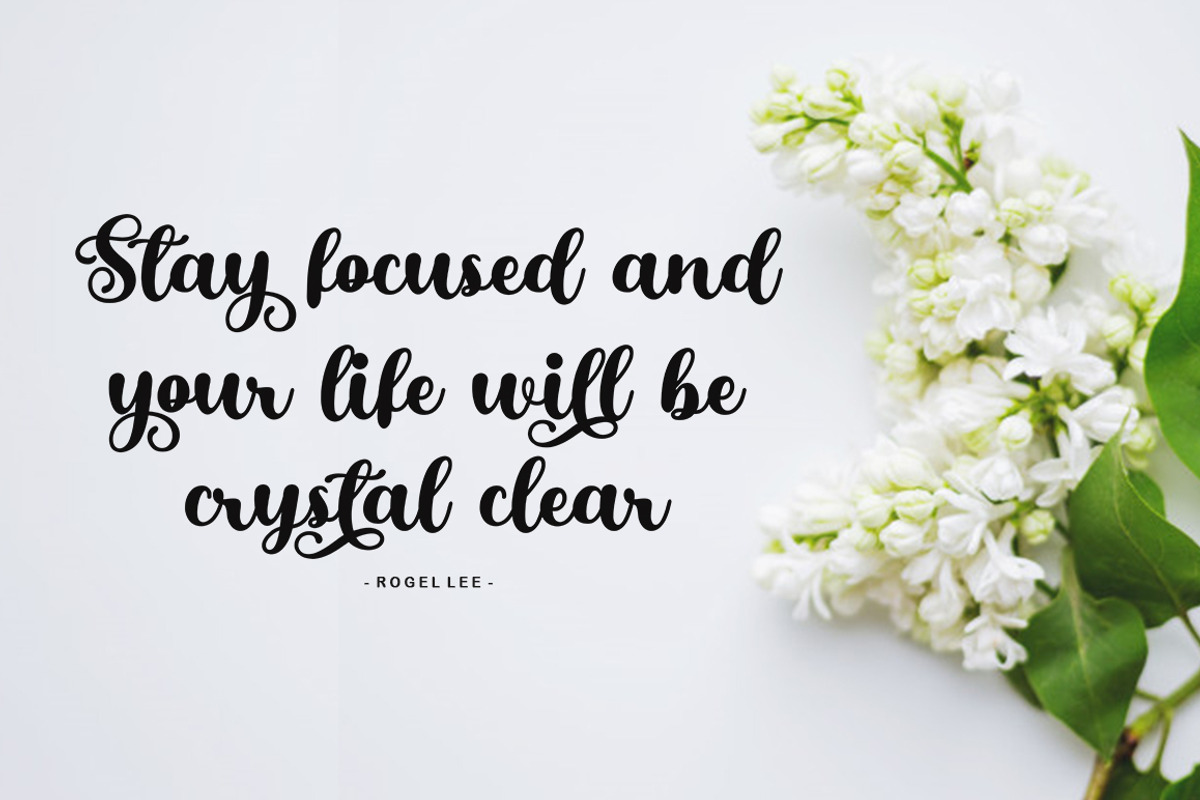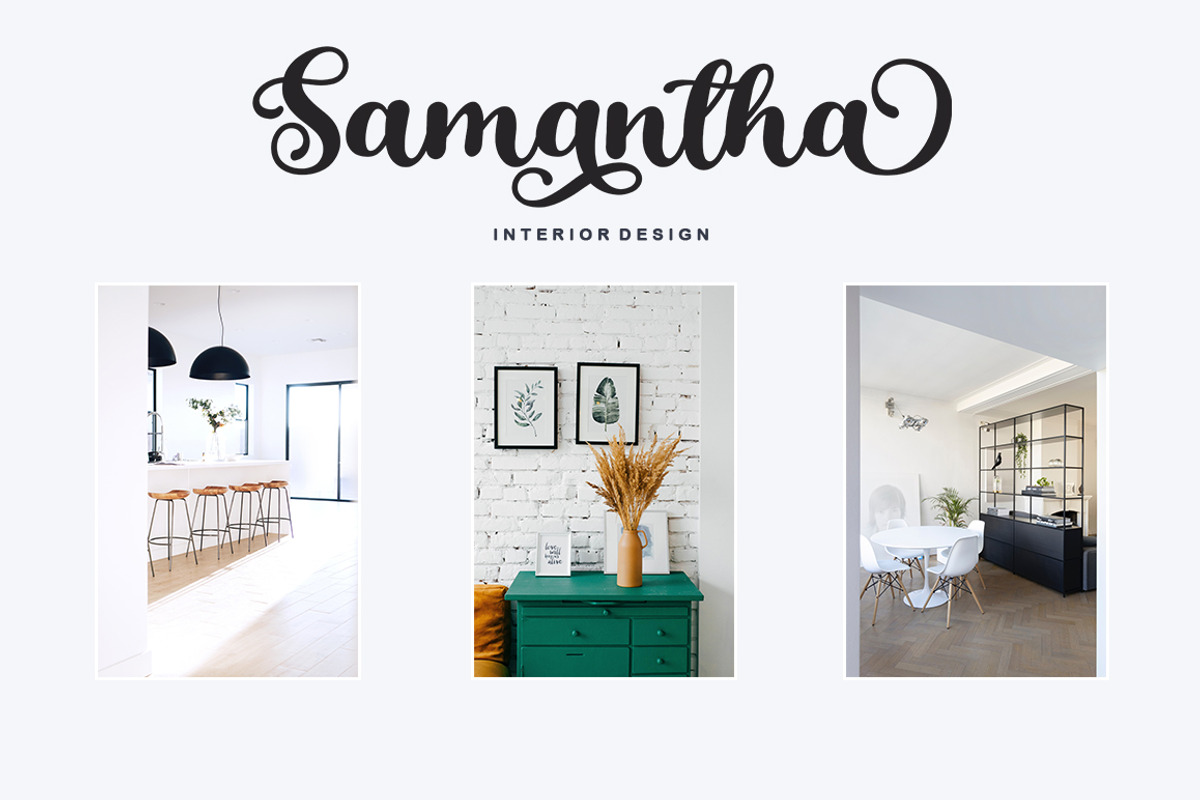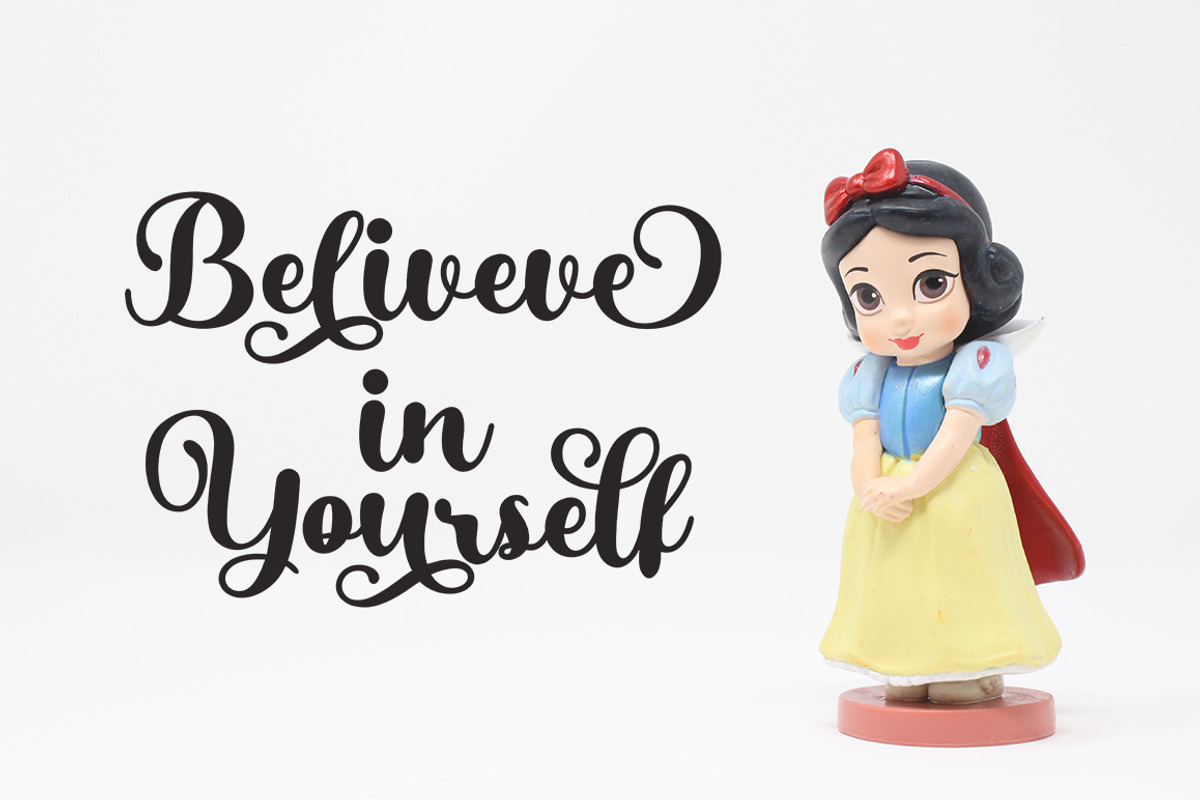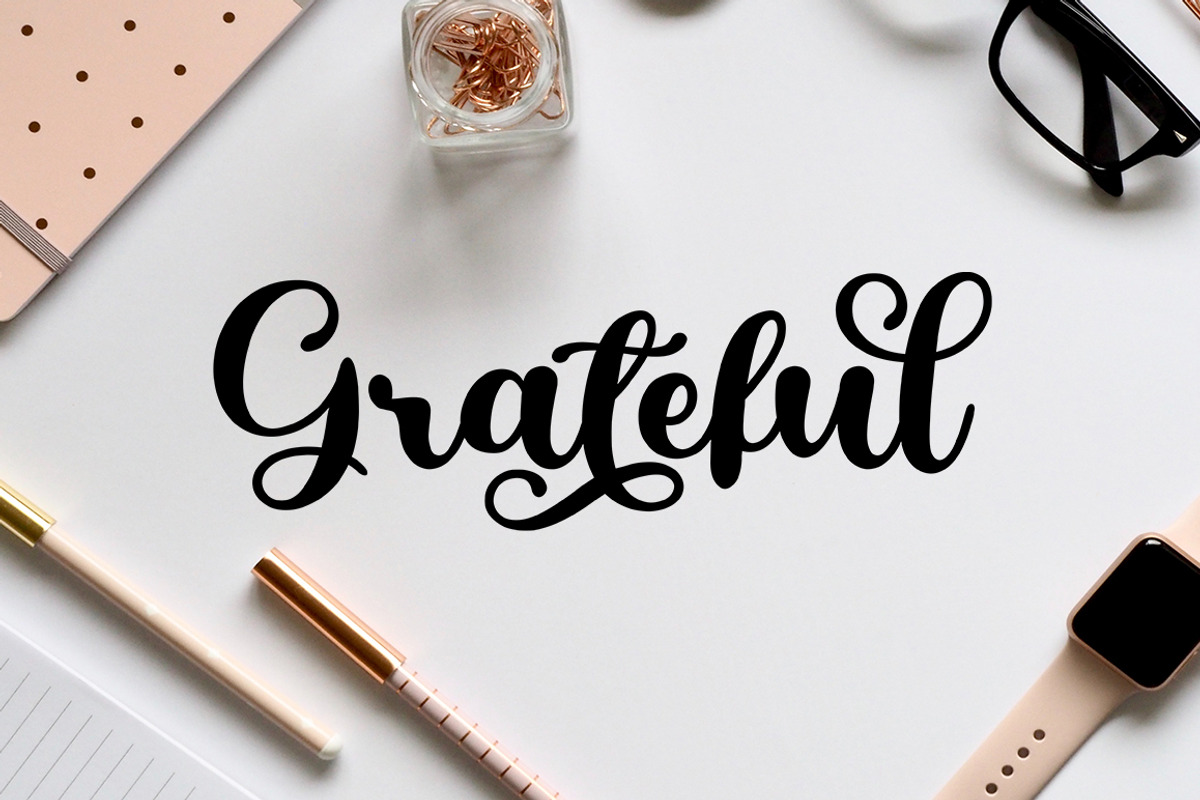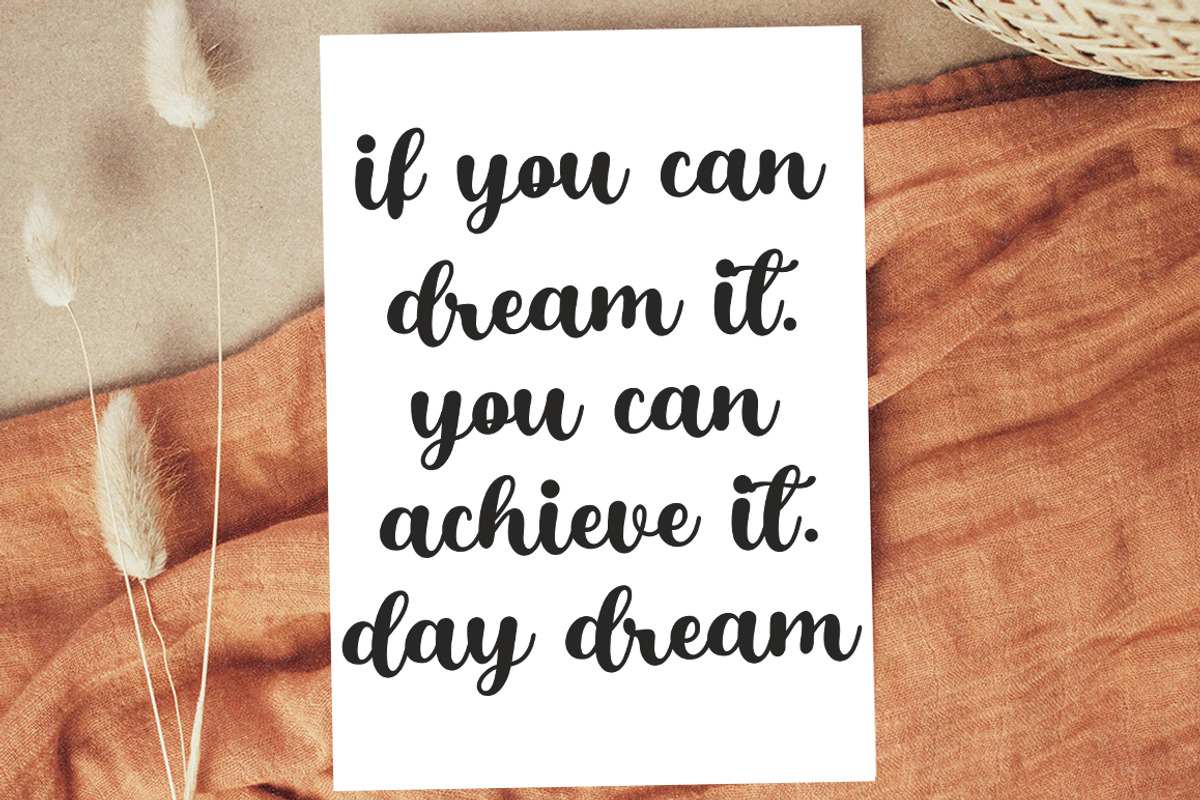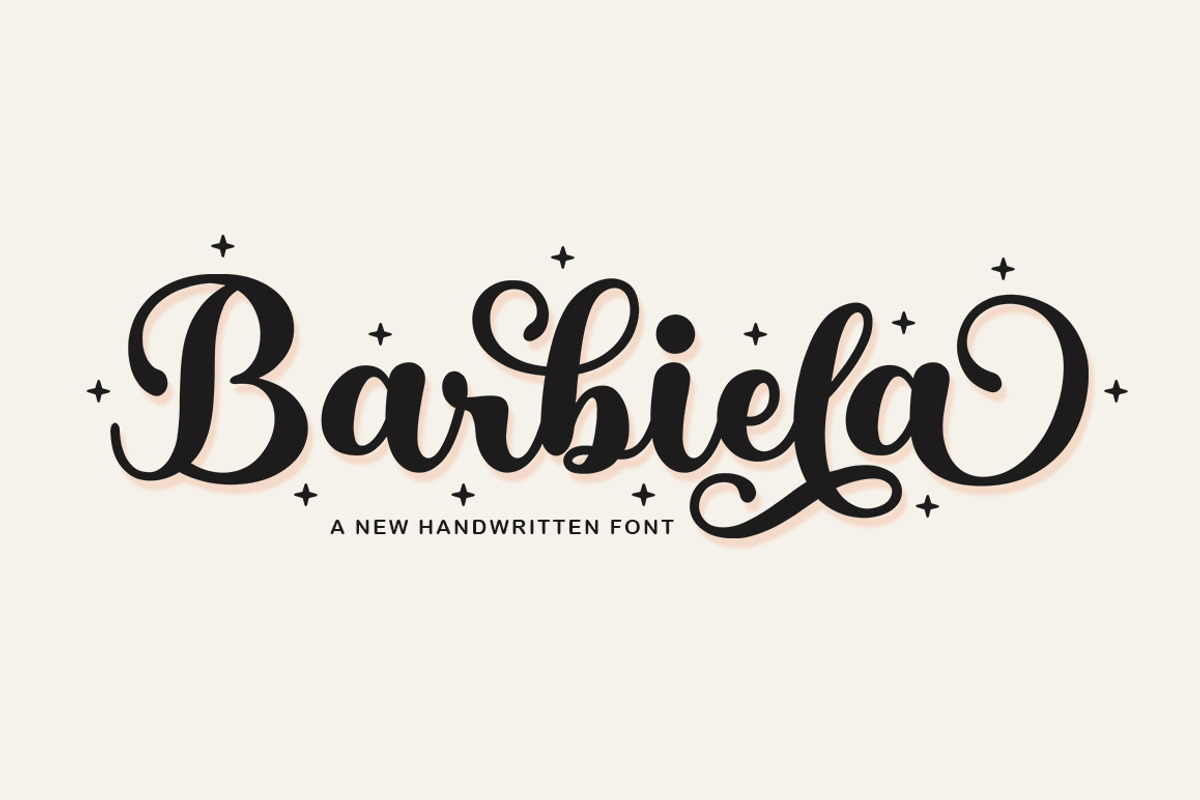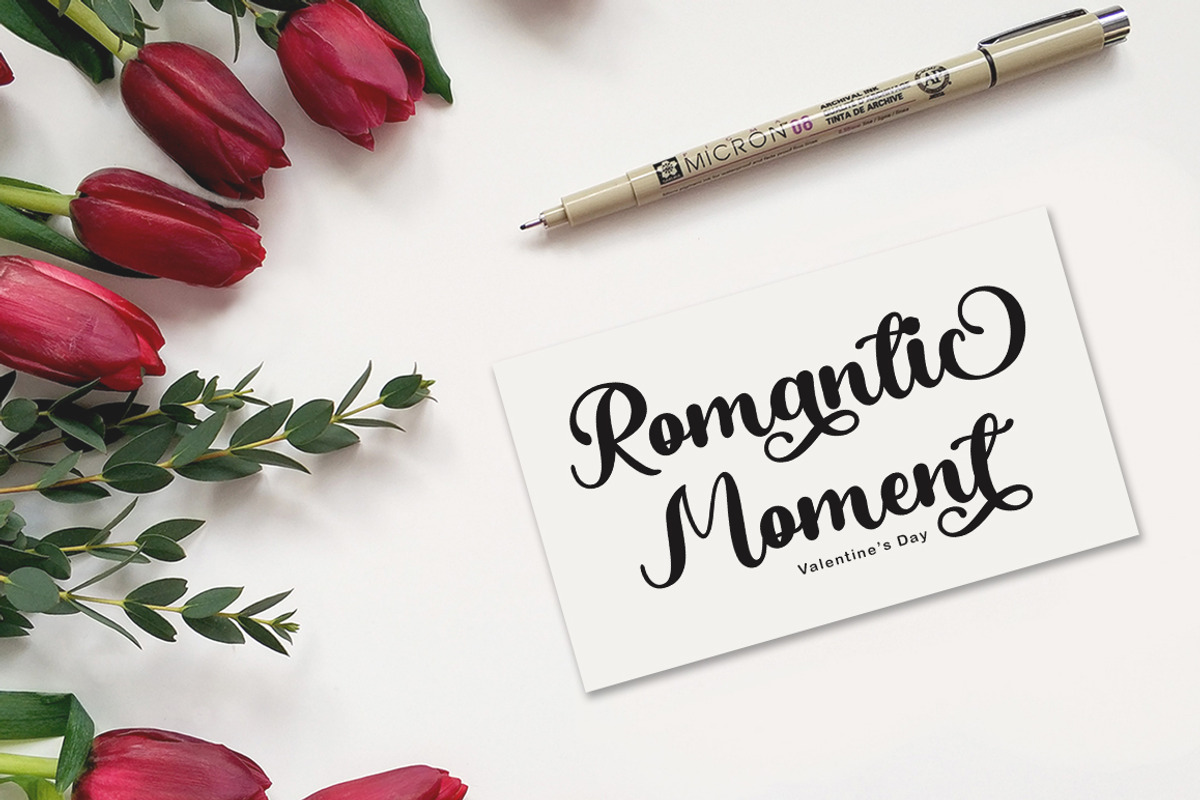
Barbiela Script
Barbiela Script! A new fresh ans modern lovely font with decorative characters and a dancing baseline. So beautiful on invitation like handicraft, greeting cards, branding materials, business cards, quotes, posters, and more design concepts.
Unique ligatures
Stylistic sets
Basic Latin A-Z and a-z